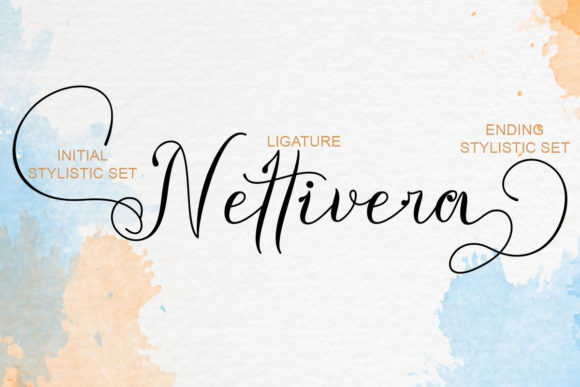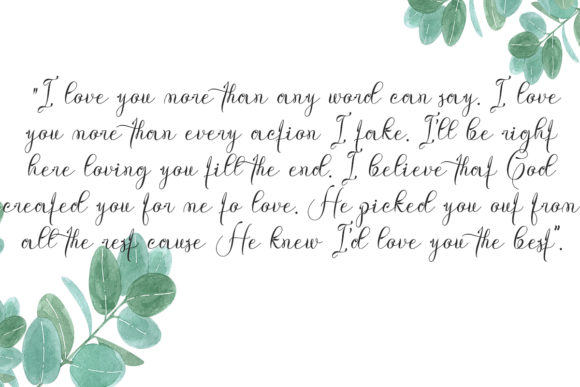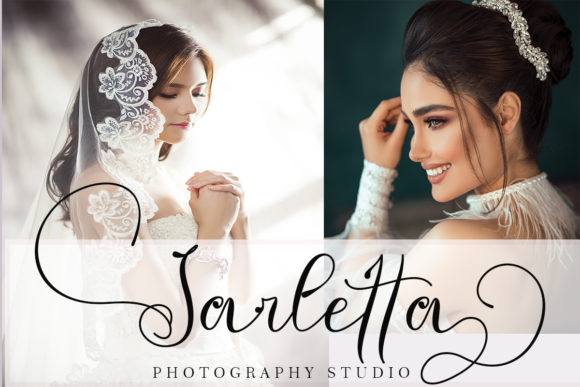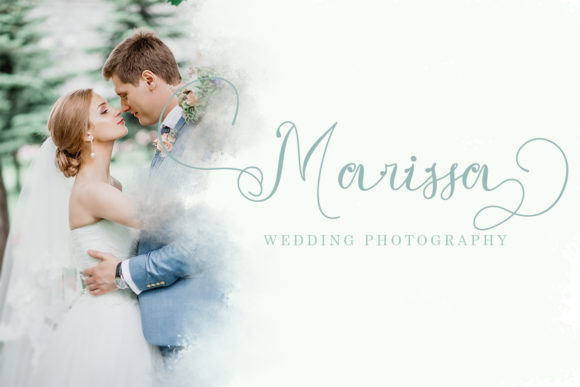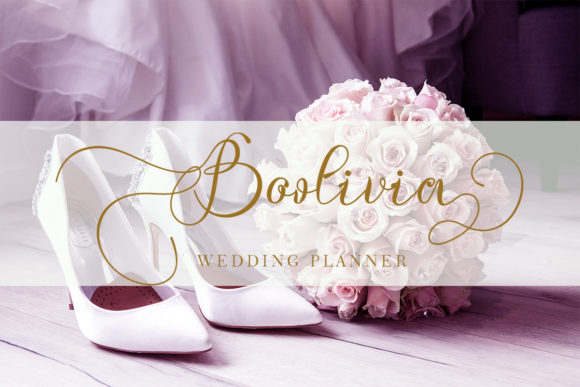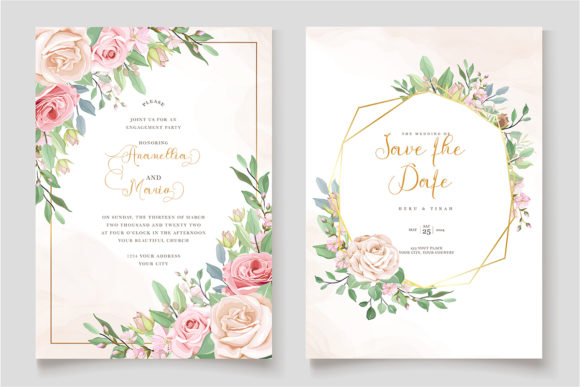
Dhefentha Font: The Ultimate Romantic Calligraphy Typeface
Are you a designer or crafter looking for a font that exudes romance and sweetness? Look no further than Dhefentha Font, a beautiful calligraphy typeface that is sure to capture your heart. With its casual yet elegant touch, Dhefentha Font is perfect for a wide range of creative projects, from logos and wedding invitations to headings, t-shirts, and more.
The Unique Charm of Dhefentha Font
What sets Dhefentha Font apart from other typefaces is its unique, dancing characters that seem to float along the baseline. This distinctive feature gives Dhefentha Font a playful, carefree feel that is sure to add a touch of whimsy to any design. At the same time, the font’s elegant lines and curves ensure that it remains sophisticated and refined, making it suitable for even the most formal projects.
One of the best things about Dhefentha Font is its incredible versatility. Whether you’re designing a logo, creating a wedding invitation, or crafting a poster, Dhefentha Font is up to the task. Its casual, yet elegant style makes it perfect for:
• Logos: Add a touch of personality to your brand with Dhefentha Font’s unique, hand-crafted look.
• Wedding Invitations: Make your wedding stationery truly special with Dhefentha Font’s romantic, whimsical feel.
• Headings: Add a touch of elegance to your headings and titles with Dhefentha Font’s sophisticated lines and curves.
• T-shirts: Create eye-catching, one-of-a-kind t-shirt designs with Dhefentha Font’s playful, carefree style.
• Letterhead: Elevate your business correspondence with Dhefentha Font’s professional, yet elegant look.
• Signage: Make your signs and displays stand out with Dhefentha Font’s bold, attention-grabbing style.
• Labels: Add a touch of personality to your labels and packaging with Dhefentha Font’s unique, hand-crafted look.
• News: Create eye-catching headlines and titles with Dhefentha Font’s bold, elegant style.
• Posters: Make your posters and flyers truly special with Dhefentha Font’s playful, whimsical feel.
• Badges: Create custom badges and insignia with Dhefentha Font’s unique, hand-crafted look.
Why Designers and Crafters Love Dhefentha Font
So, why do designers and crafters love Dhefentha Font? Here are just a few reasons:
• Ease of use: Dhefentha Font is incredibly easy to use, even for those with limited design experience.
• Flexibility: Dhefentha Font is suitable for a wide range of creative projects, from formal to informal.
• Uniqueness: Dhefentha Font’s distinctive, dancing characters ensure that your designs will stand out from the crowd.
• Elegance: Dhefentha Font’s sophisticated lines and curves add a touch of elegance to any design.
Tips for Using Dhefentha Font
Here are a few tips for getting the most out of Dhefentha Font:
• Experiment with different sizes: Dhefentha Font looks great in a variety of sizes, from large headings to smaller body text.
• Play with colors: Dhefentha Font’s elegant lines and curves look great in a range of colors, from bold and bright to soft and pastel.
• Mix and match: Combine Dhefentha Font with other typefaces for a unique, eye-catching look.
In conclusion, Dhefentha Font is a romantic and sweet calligraphy typeface that is sure to capture your heart. With its casual, yet elegant touch, Dhefentha Font is perfect for a wide range of creative projects, from logos and wedding invitations to headings, t-shirts, and more. Whether you’re a designer or crafter, Dhefentha Font is a must-have addition to your font collection.